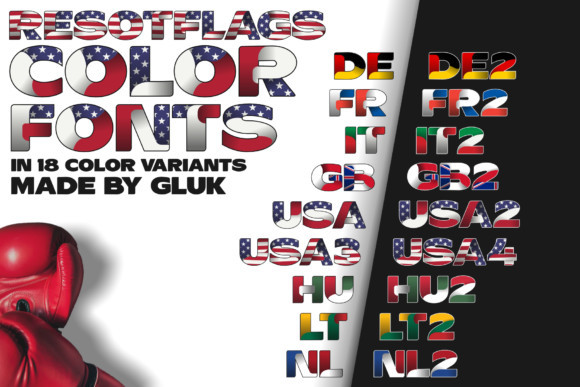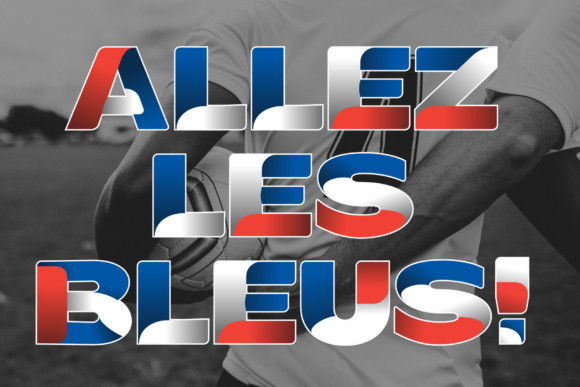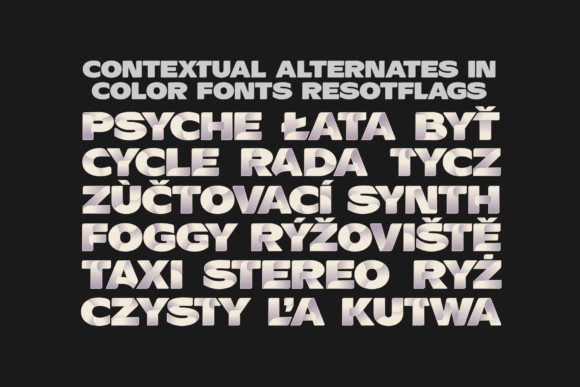
ResotFlags Font
The ResotFlags color font family was created inspired by the colors of national flags.
Fully vector colored letters allow you to create any size headers, banners or advertising slogans.
Automatic contextual alternates and ligatures built into the fonts compensate for white space area differences.